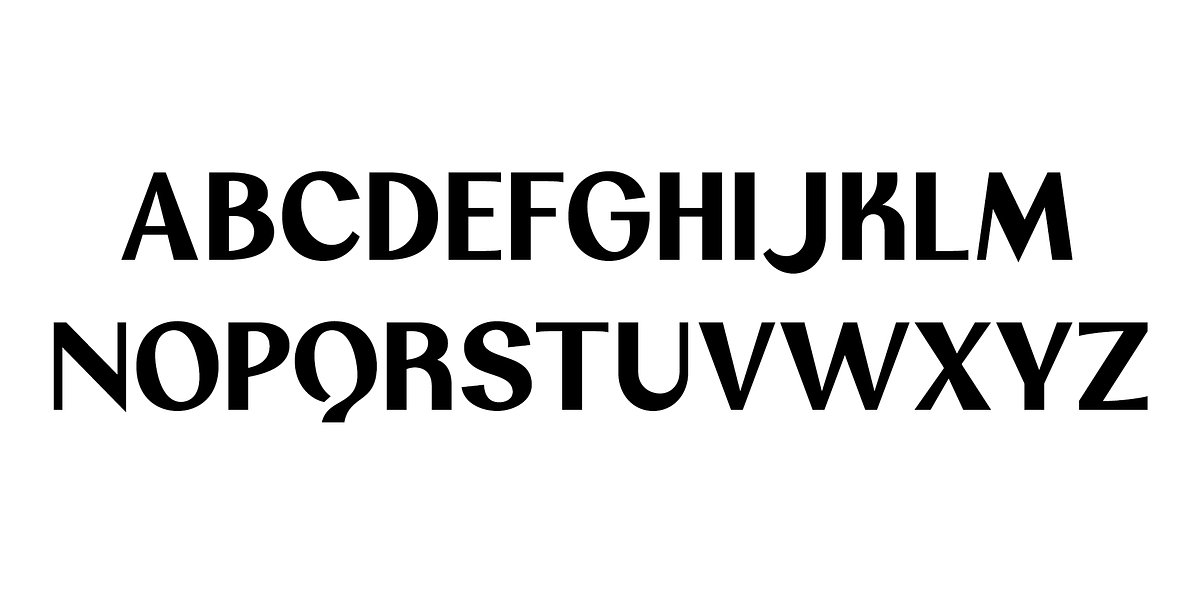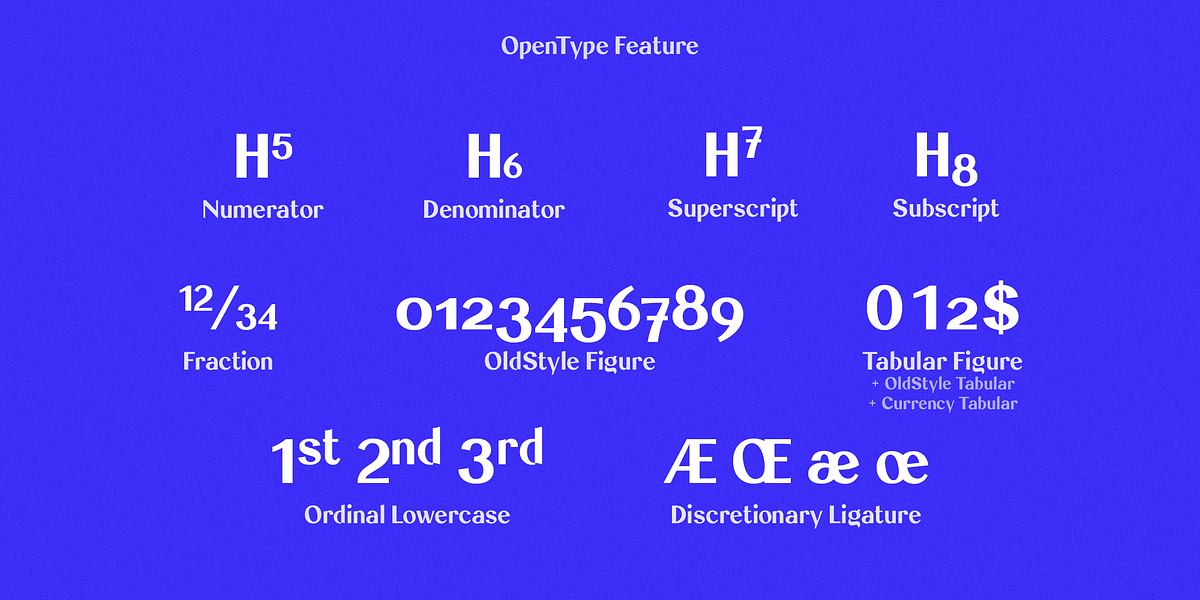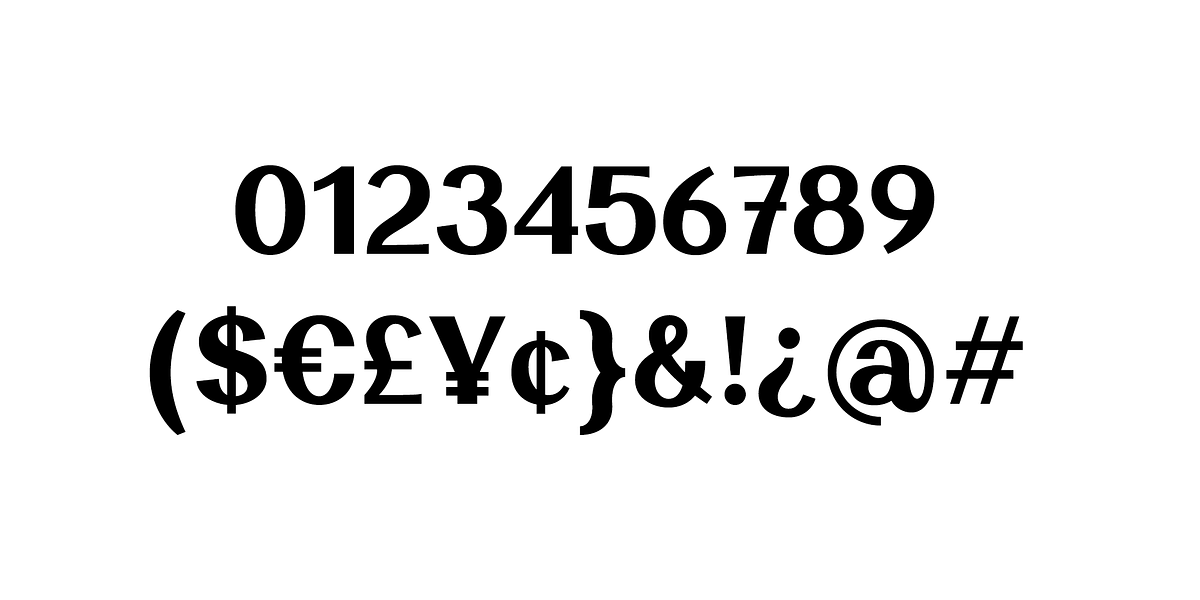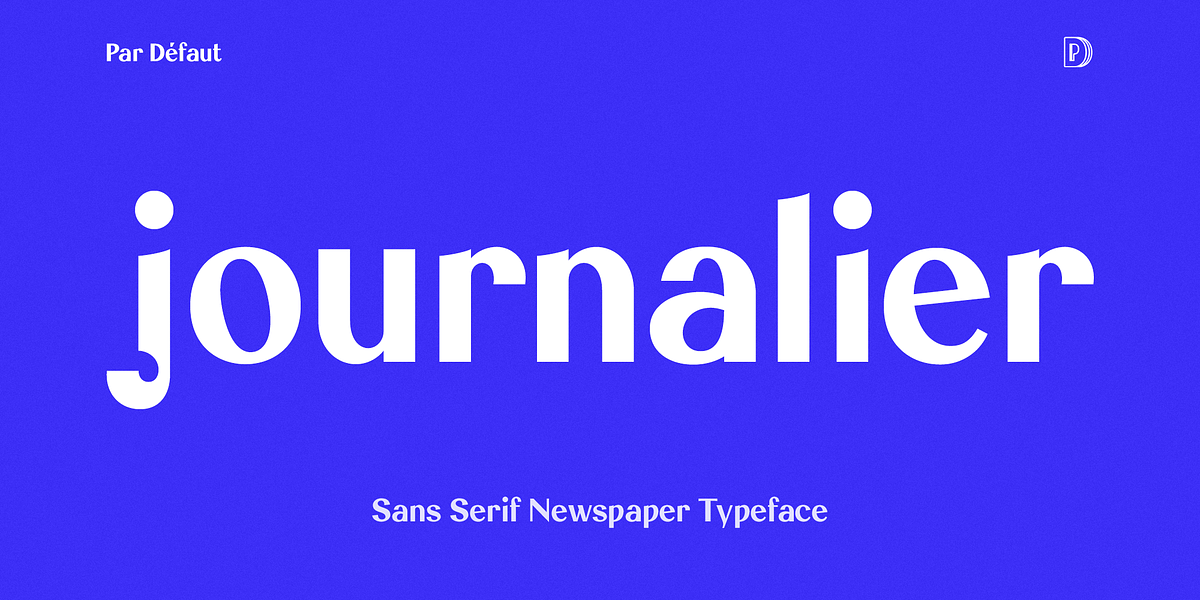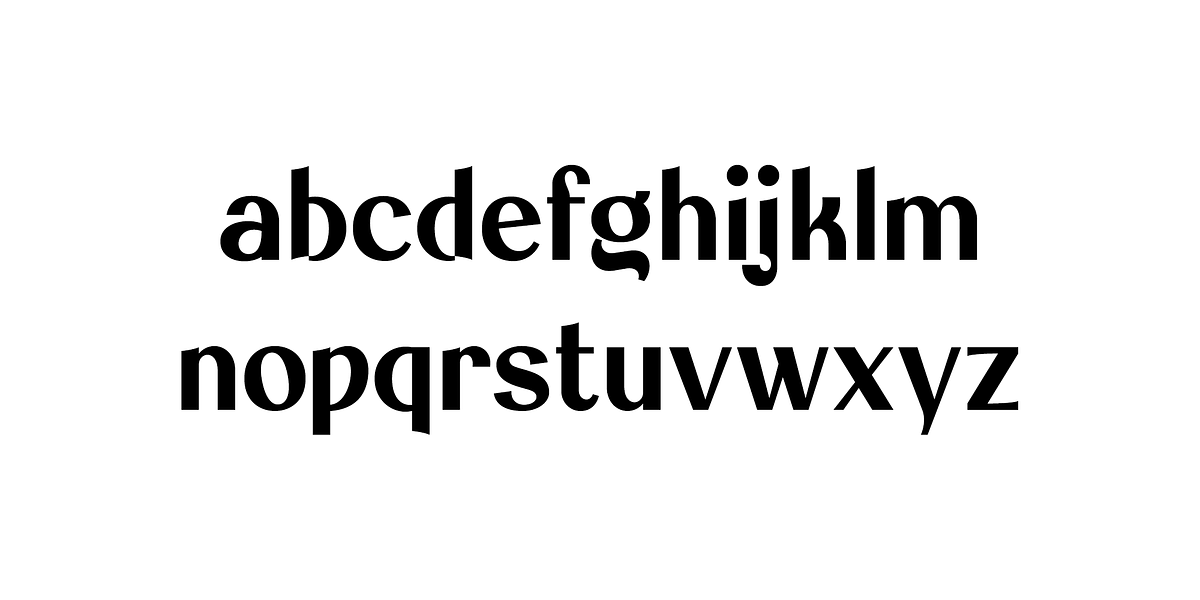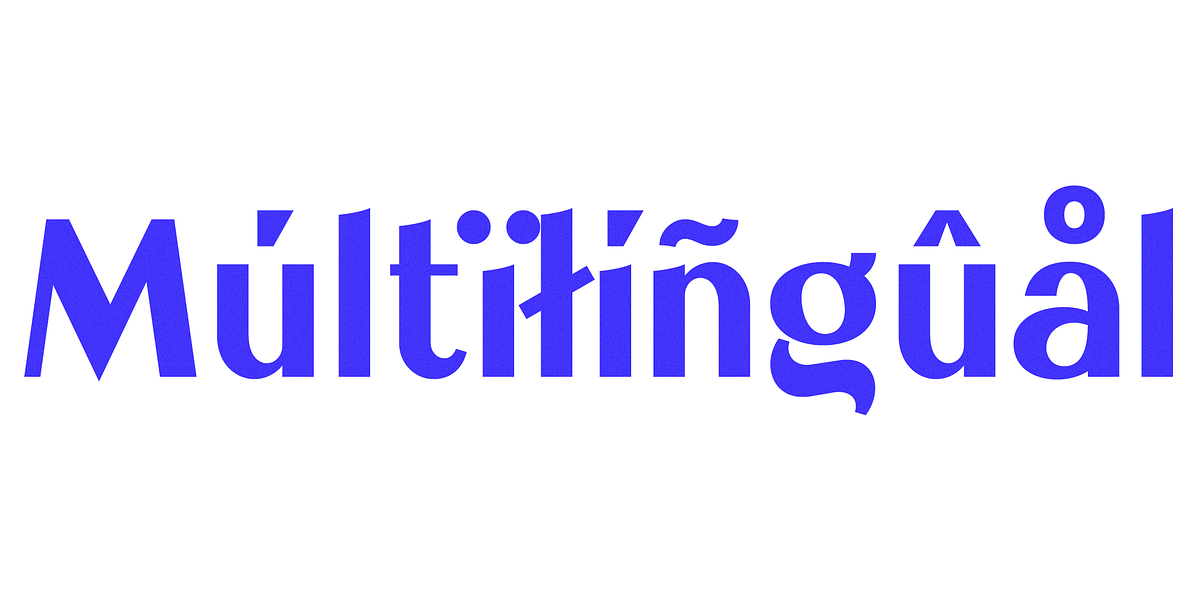
Journalier
Journalier is a contemporary sans serif typeface designed specifically for display purposes. Its clean lines and geometric construction make it highly legible for titles and headings. The font supports a wide range of OpenType features, including fractions, superscripts, subscripts, oldstyle figures, and tabular figures with currency symbols. These features enhance its versatility for various applications, particularly in publications like newspapers and magazines.